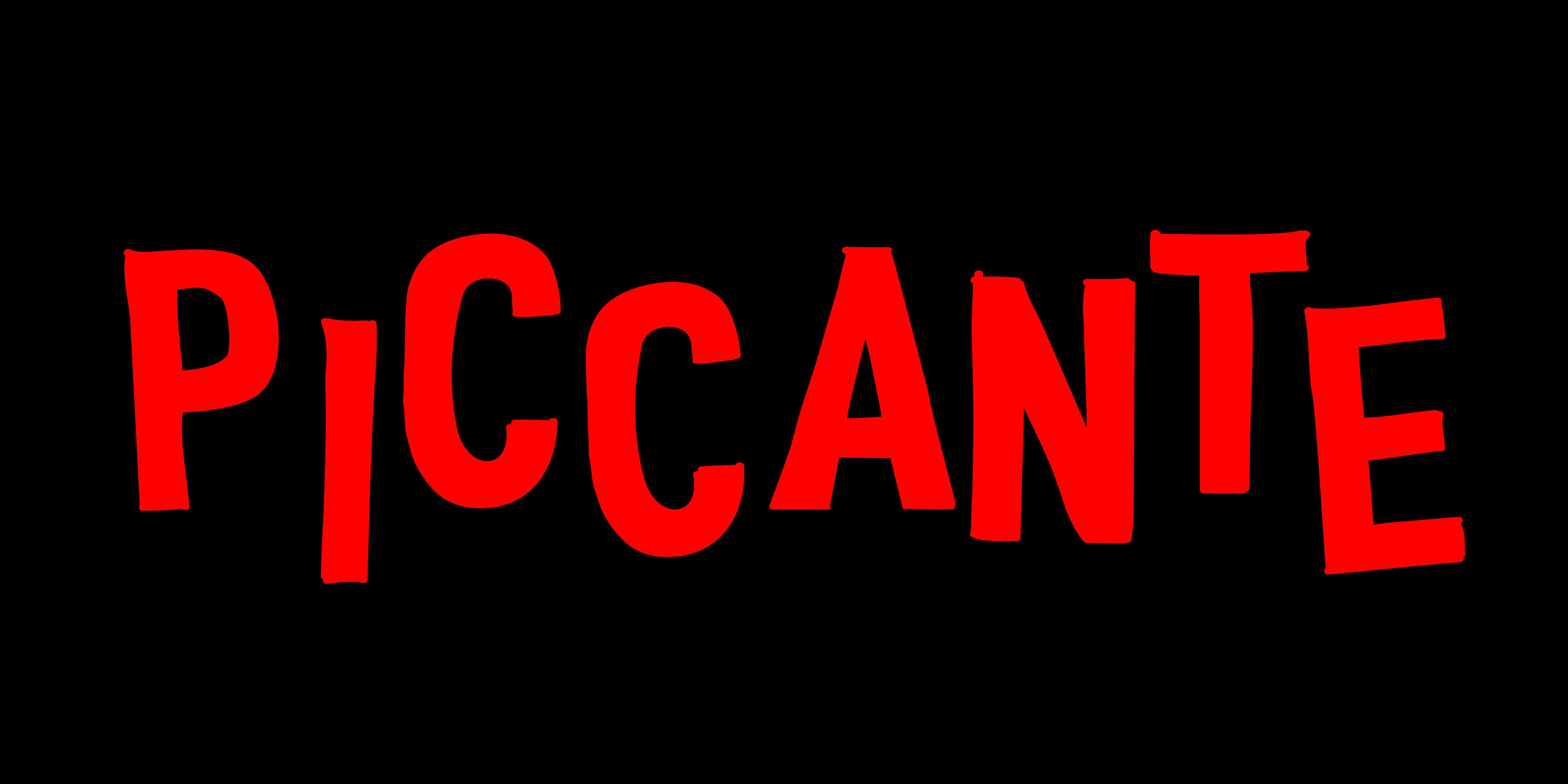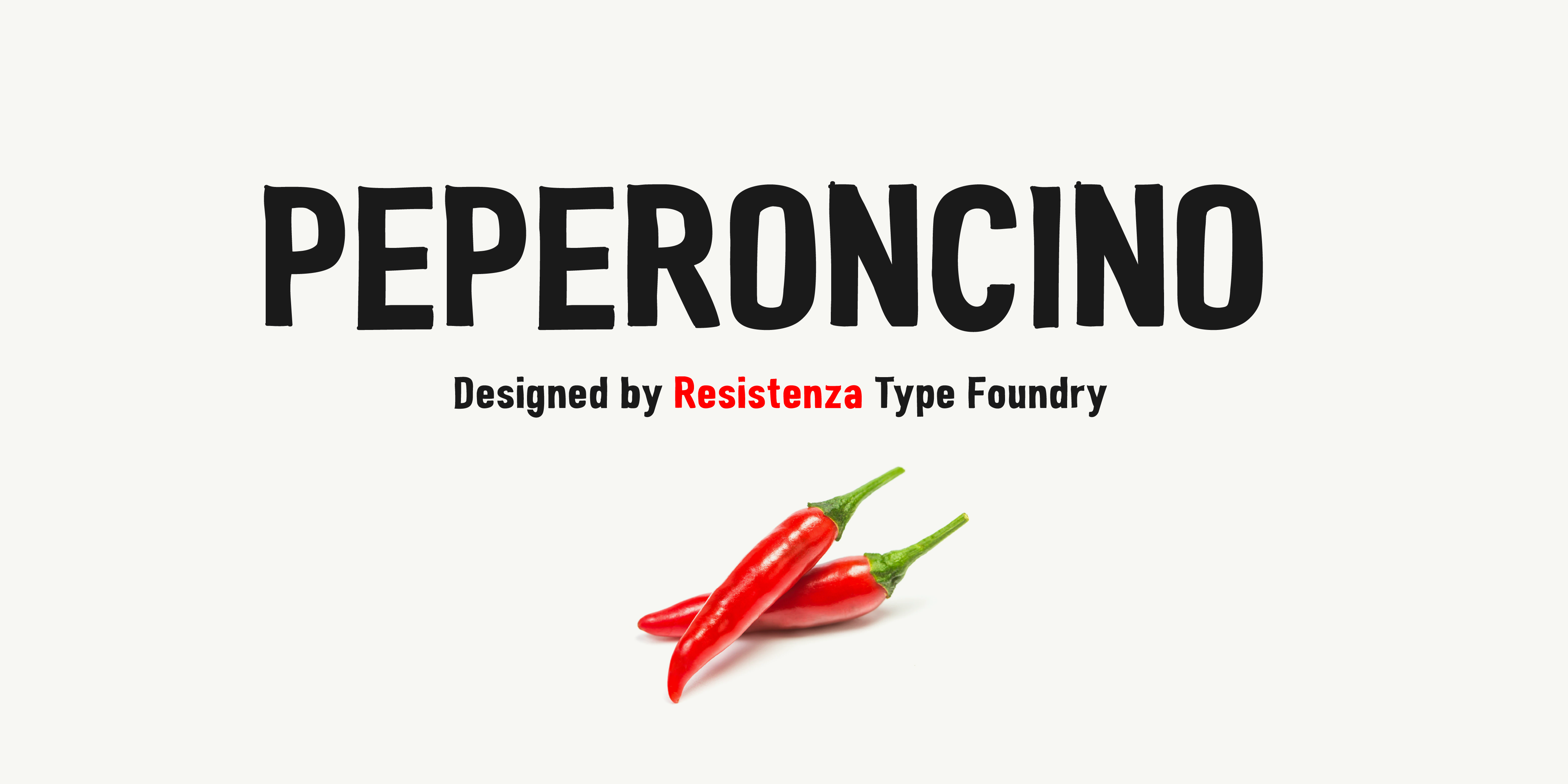
Peperoncino Collection
PeperoncinoSans
Hand-drawn Sans serif font
Peperoncino
Designed by Resistenza Type Foundry
Peperoncino is a decorative sans serif font system. Designed first with a marker, the irregular strokes create a fresh handmade feeling. This layered type family includes several textures and shadows. Different fonts can be used together to creat many different layouts; combine, change colors, ad effects. Each font contains the same metrics, so when your title is set, copy and paste-in-place to create layers of different weights/styles to build out your desired effect.